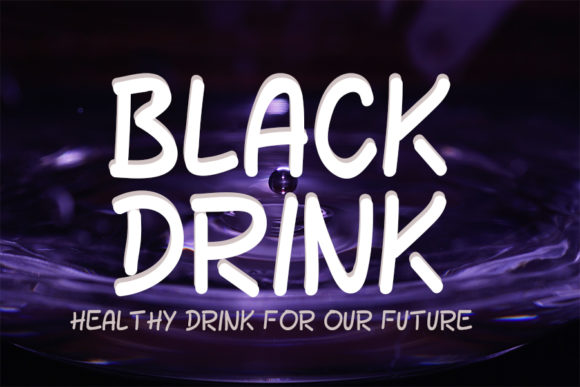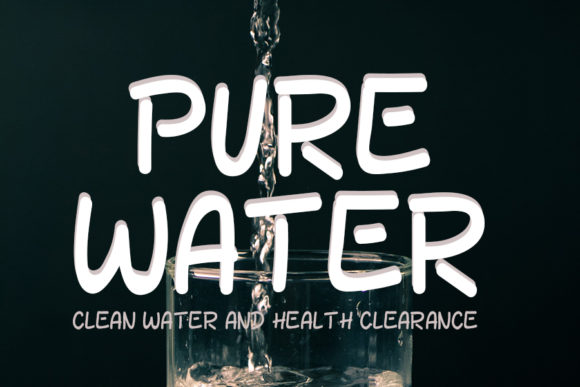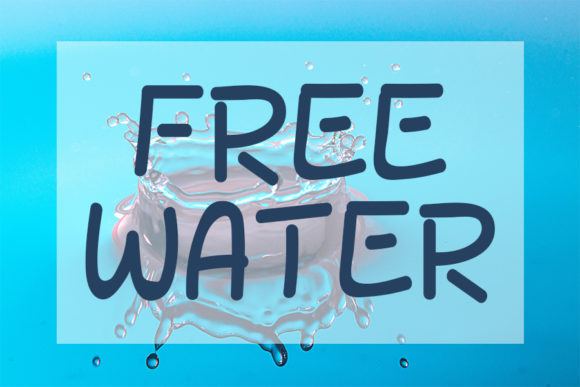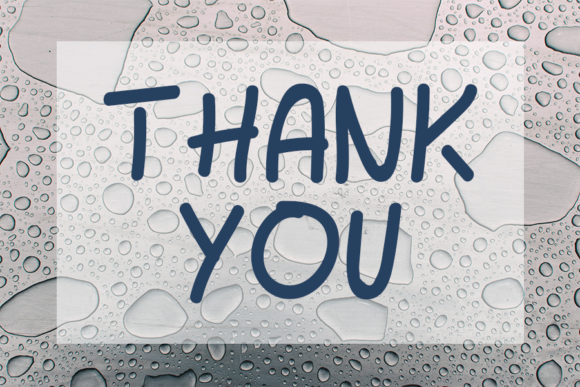
The Power of Typography: How Black Drink Font Elevates Your Designs
I’ll never forget the time I was working on a branding project for a trendy coffee shop. I had nailed the color palette, logo, and overall aesthetic, but something was missing. As I scrolled through font after font, I just couldn’t find the right fit. That was until I stumbled upon Black Drink, a simple yet striking lettered display font that instantly elevated my design. In this article, I’ll share my love for Black Drink, its features, and how to make the most of it in your creative projects.
An Honest Review of Black Drink Font
So, what makes Black Drink so special? Let’s dive into the good stuff and a few quirks to keep in mind.
What I Love About Black Drink ✨
- ✅ Clean and Simple Design: Black Drink boasts a sleek, uncluttered look that makes it perfect for headlines, titles, and short text snippets.
- ✅ Versatility: This font works beautifully across various design platforms, from digital media to print materials.
- ✅ Easy to Read: Despite its stylized appearance, Black Drink remains highly legible, even at smaller sizes.
- ✅ Unique Character: The font’s distinctive style adds a touch of personality to any design, making it stand out from more generic fonts.
- ⚠️ Limited Use in Body Text: Due to its display nature, Black Drink isn’t ideal for lengthy paragraphs or body text. Stick to shorter texts for maximum impact.
- ⚠️ Glyph Limitations: While Black Drink offers a range of glyphs and stylistic alternates, it may not have every special character you need. Plan accordingly.
The Story Behind Black Drink Font
While the origins of Black Drink might not be well-documented, it’s clear that its design was inspired by a desire to create a clean, impactful font for creative professionals. Whether born out of a specific project need or a passion for typography, Black Drink has undoubtedly filled a gap in the design world.
Q: What makes Black Drink Font unique?
A: Black Drink’s uniqueness lies in its simple yet stylish design, making it perfect for adding a touch of personality to your projects without overwhelming them.
Q: Is Black Drink suitable for body text?
A: While Black Drink is primarily a display font, it’s best used for short text snippets. For longer body text, consider a more readable font.